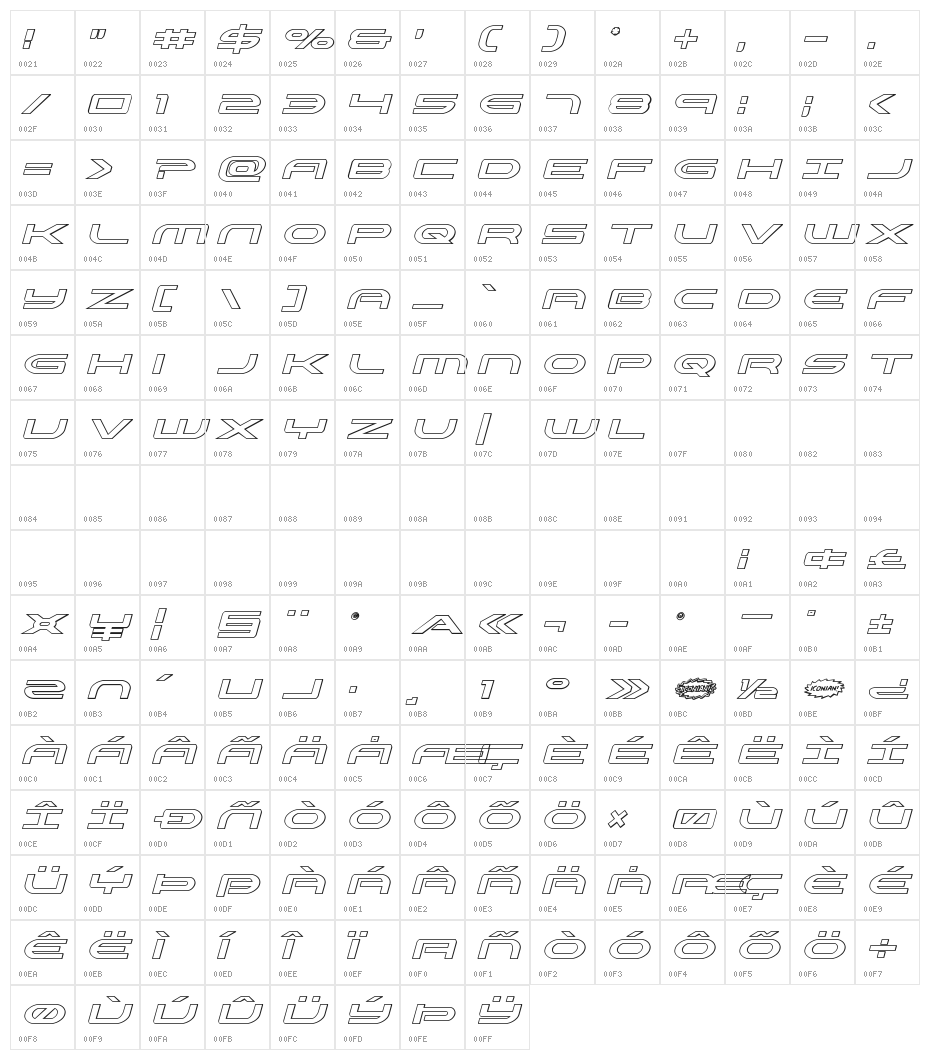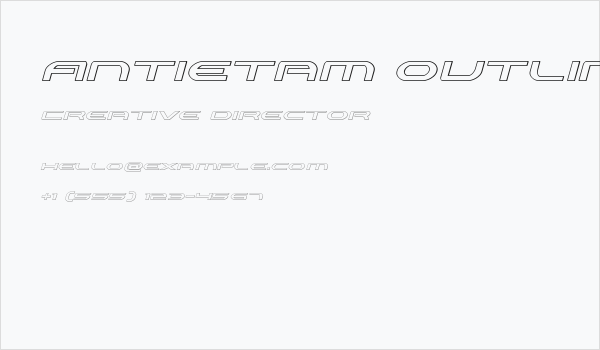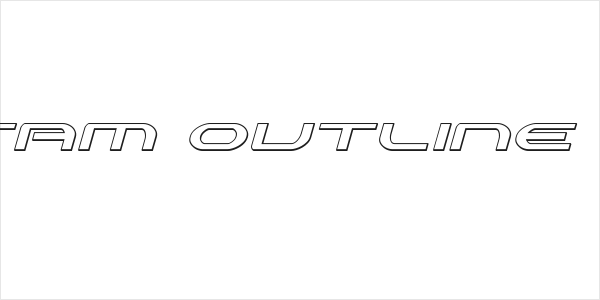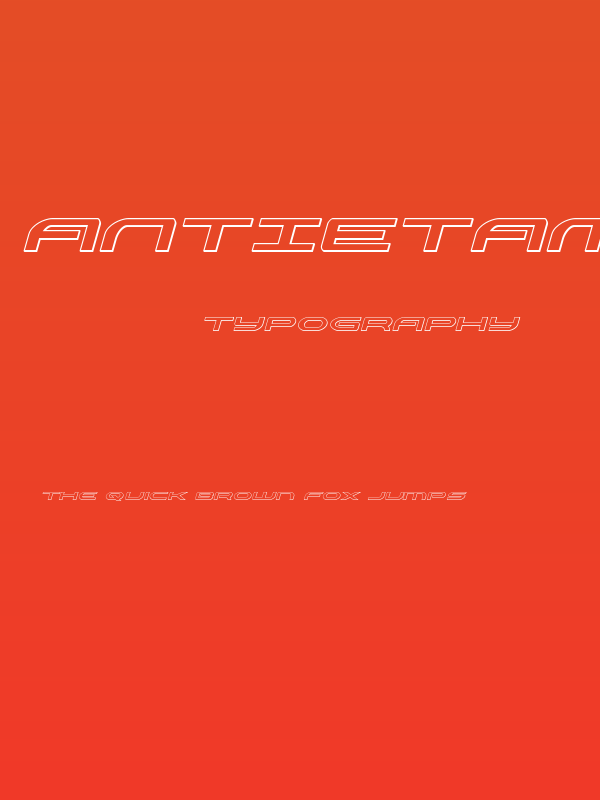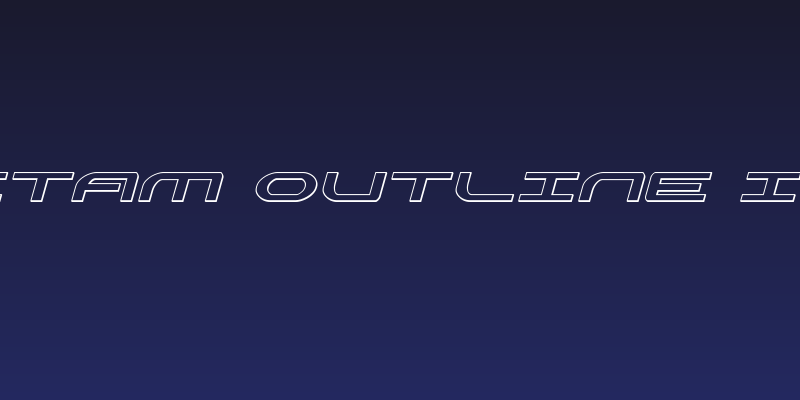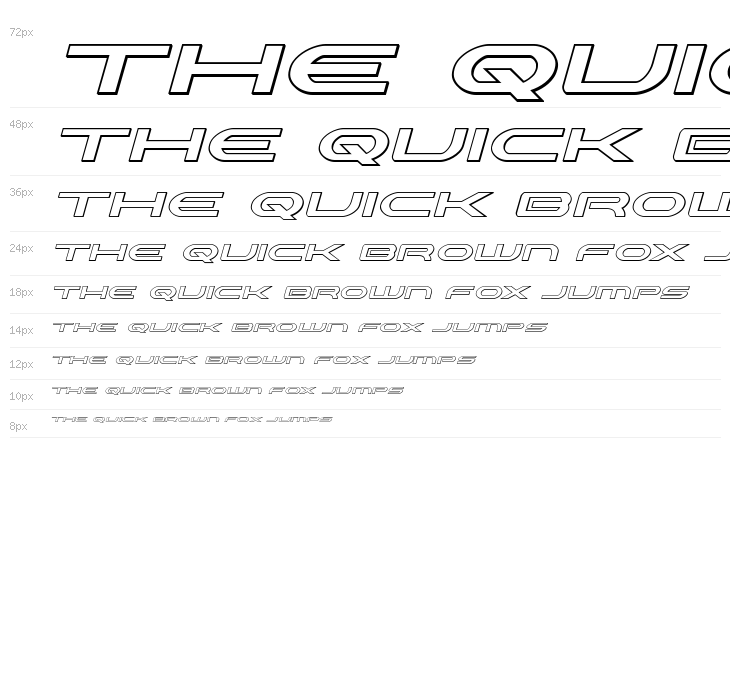
Antietam Outline Italic Font
Antietam Outline Italic Description
This font features an outline style with a modern and futuristic aesthetic. The characters are italicized, giving them a dynamic and forward-leaning appearance. The geometric shapes and clean lines create a sense of precision and clarity. Each letter is distinctly outlined, which enhances readability while maintaining a unique visual appeal. The font includes both uppercase and lowercase letters, numerals, and a variety of special characters. Its design is suitable for projects that require a contemporary and stylish look, such as technology branding, modern advertising, or digital media.